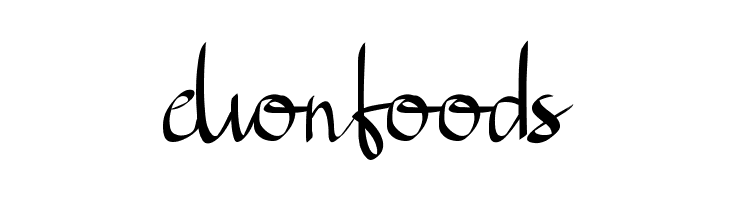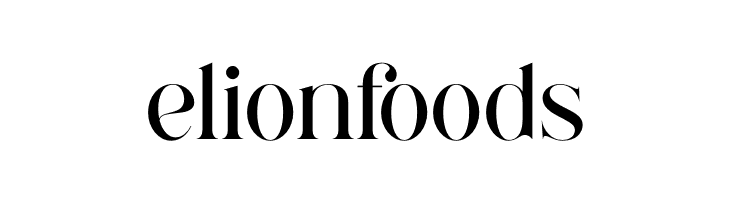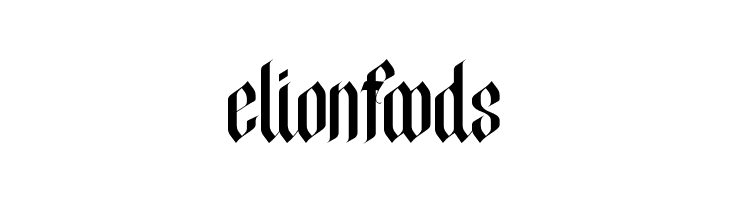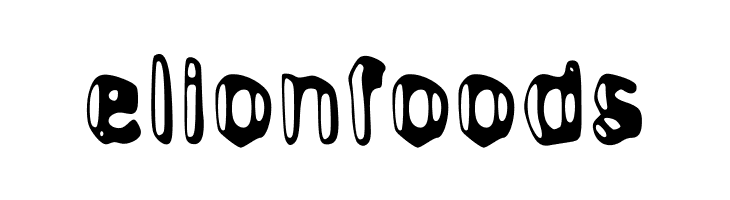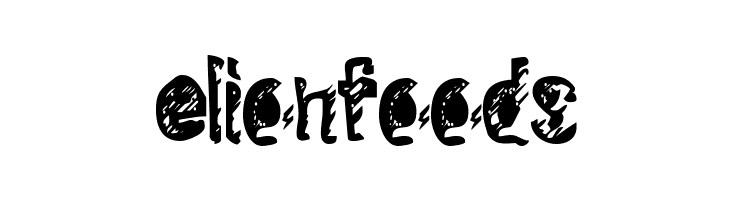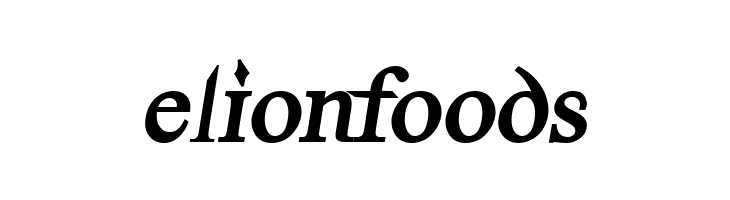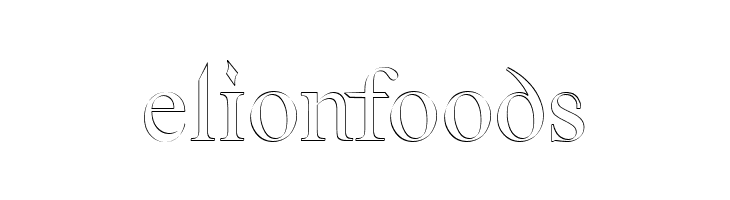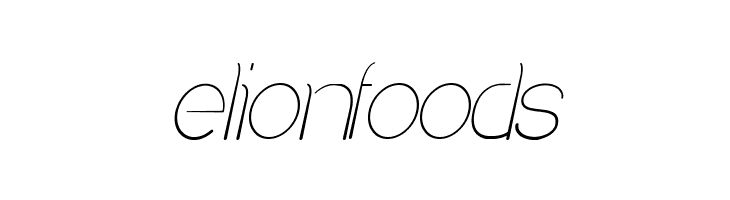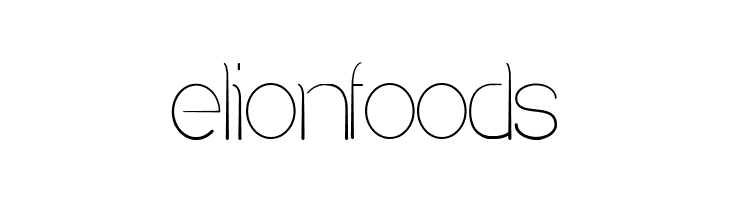
A bold, geometric font with a futuristic and modern design.
A bold, playful font with a hand-drawn, irregular style.
A casual, playful handwritten font with smooth, flowing curves and connected letters.
A bold, playful font with a distressed, hand-crafted look.
A bold, playful, hand-drawn font with dynamic, irregular characters.
A classic serif font with decorative alternates and moderate contrast.
A classic serif font with an elegant italic slant and refined details.
A classic serif font with elegant lines and a traditional, sophisticated appearance.